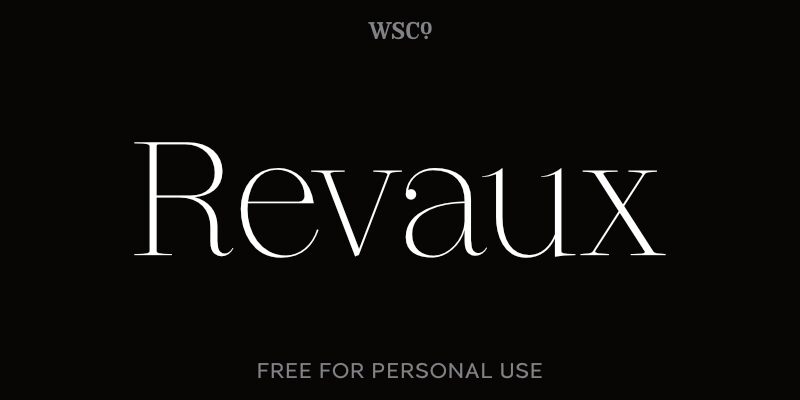
Revaux, the brainchild of Wahyu & Sani Co., is a sophisticated serif font with an extra-light weight.
Its elegant and refined design makes it perfect for high-end fashion magazines, luxury branding, and wedding invitations. With its delicate strokes and graceful curves, Revaux exudes an air of timeless beauty, making it an ideal choice for book covers and editorial layouts.
Whether you're working on a prestigious art exhibition catalog or a premium lifestyle blog, Revaux will lend your projects an exquisite touch of class.